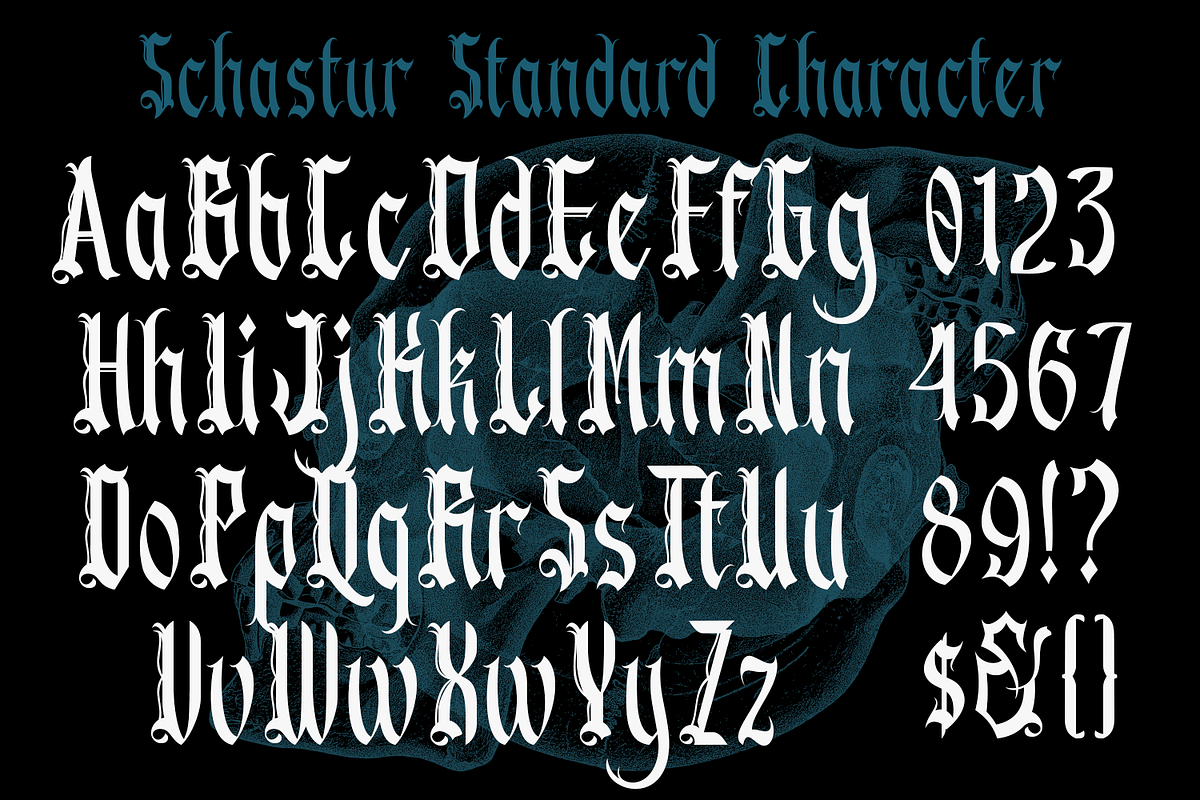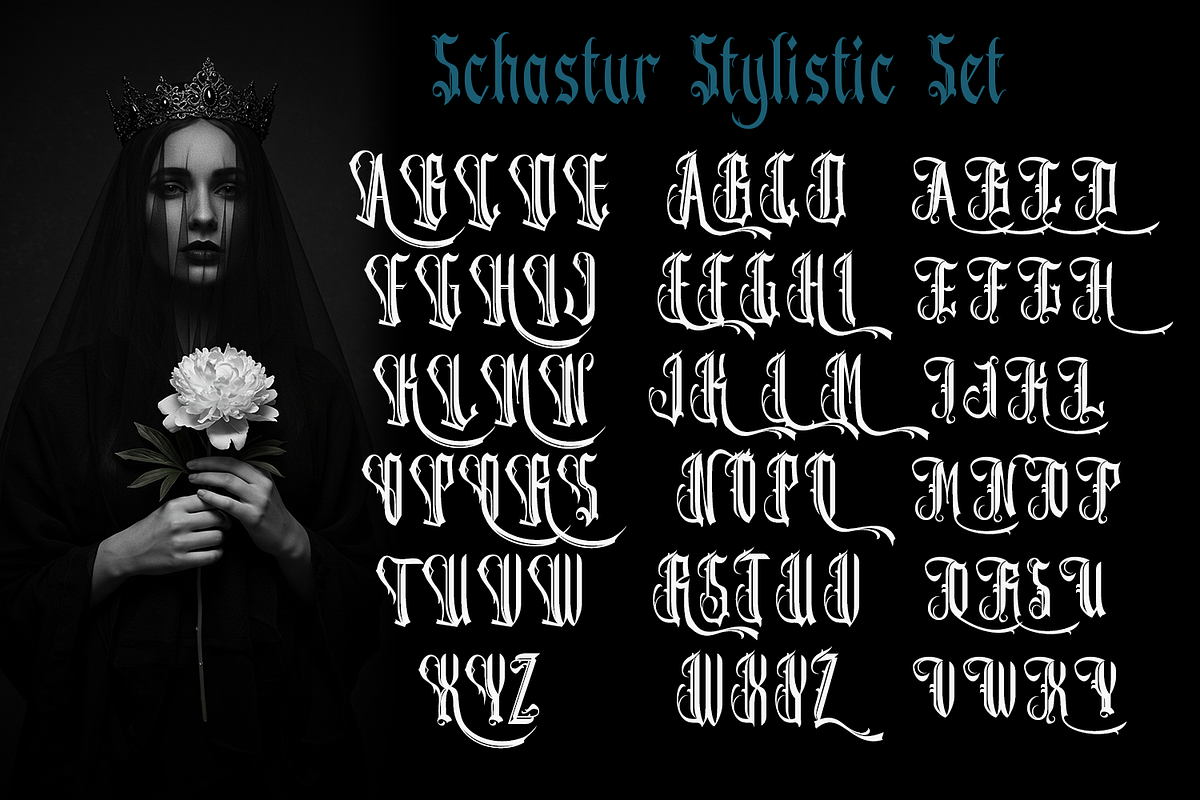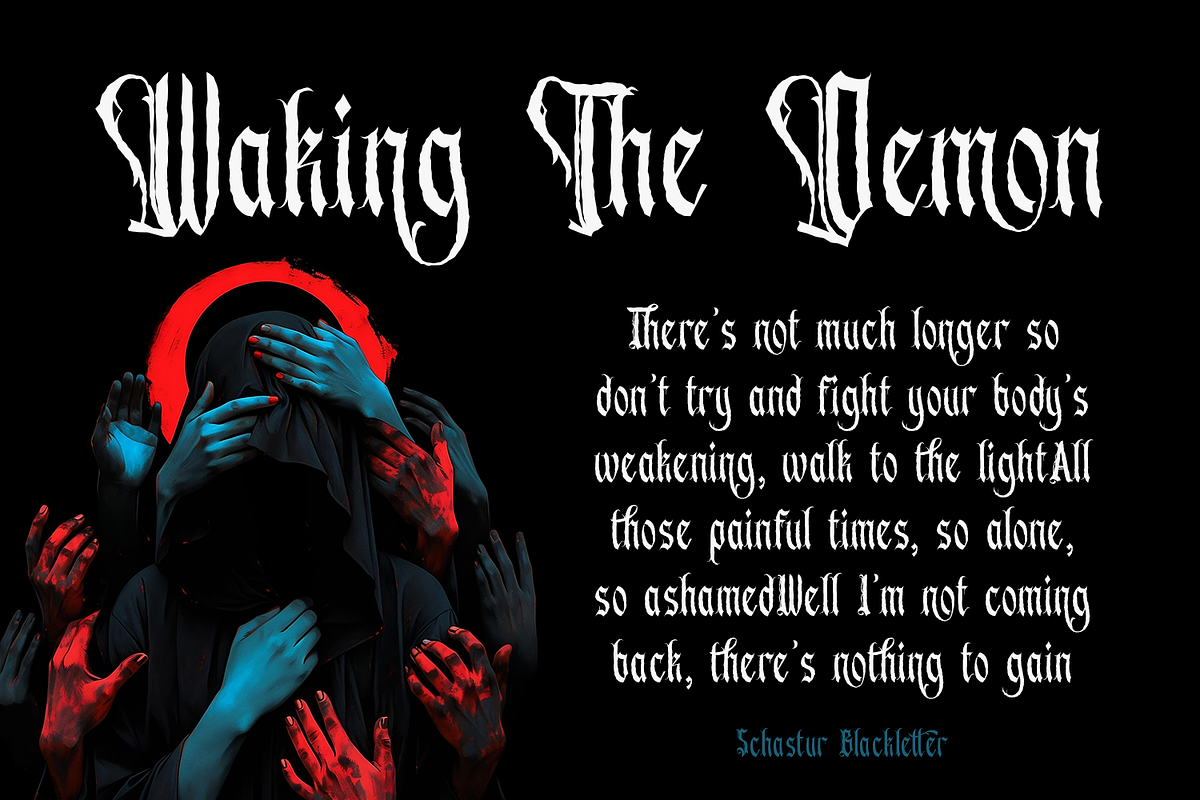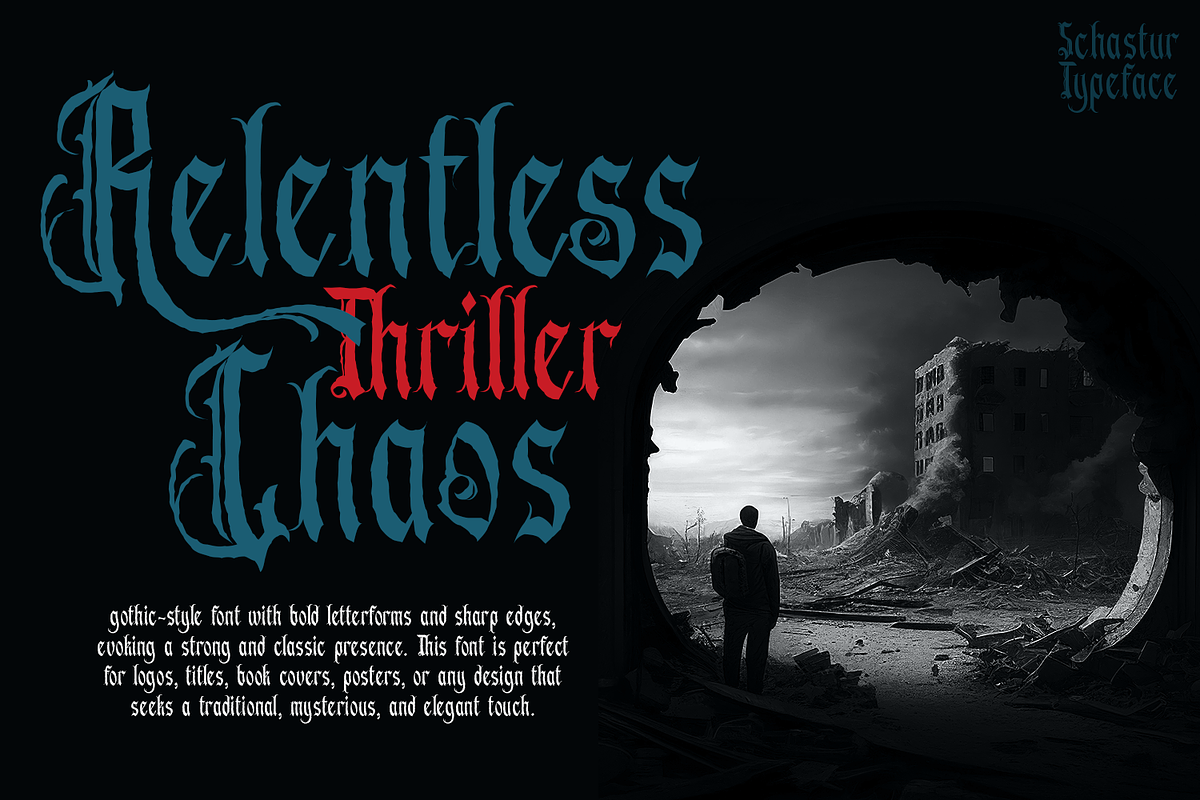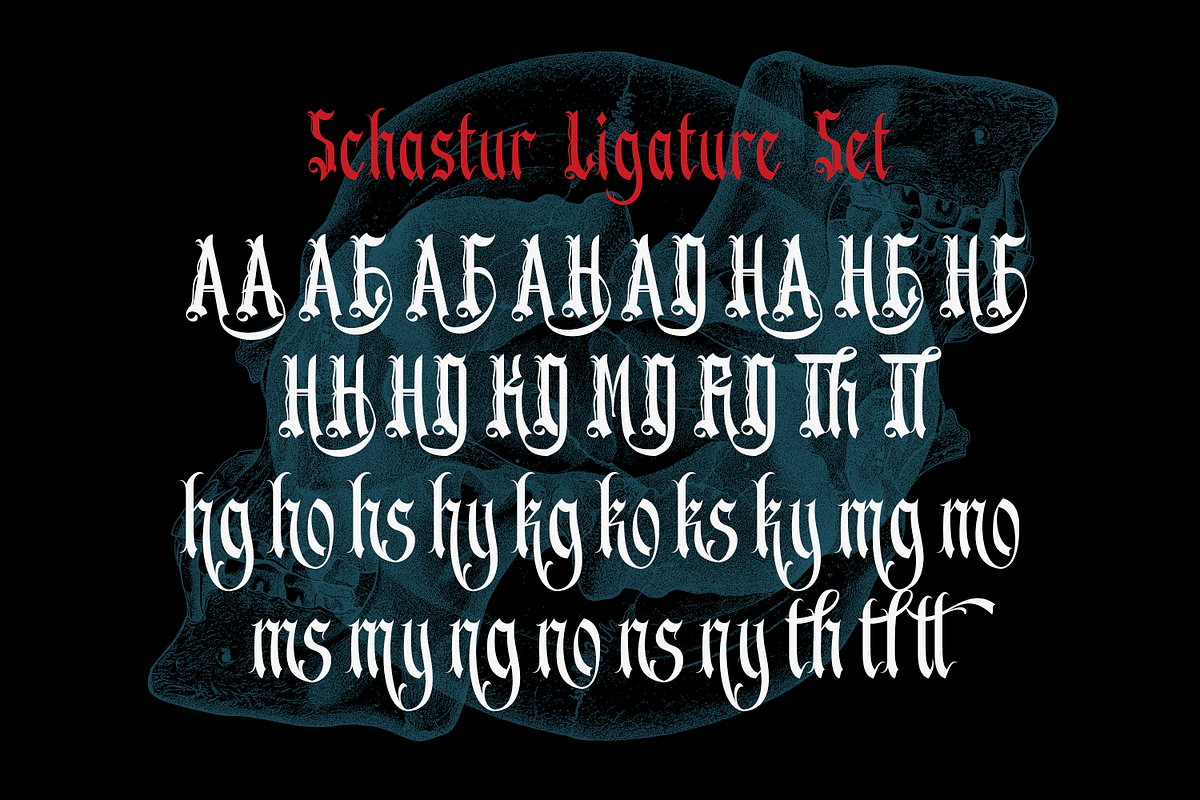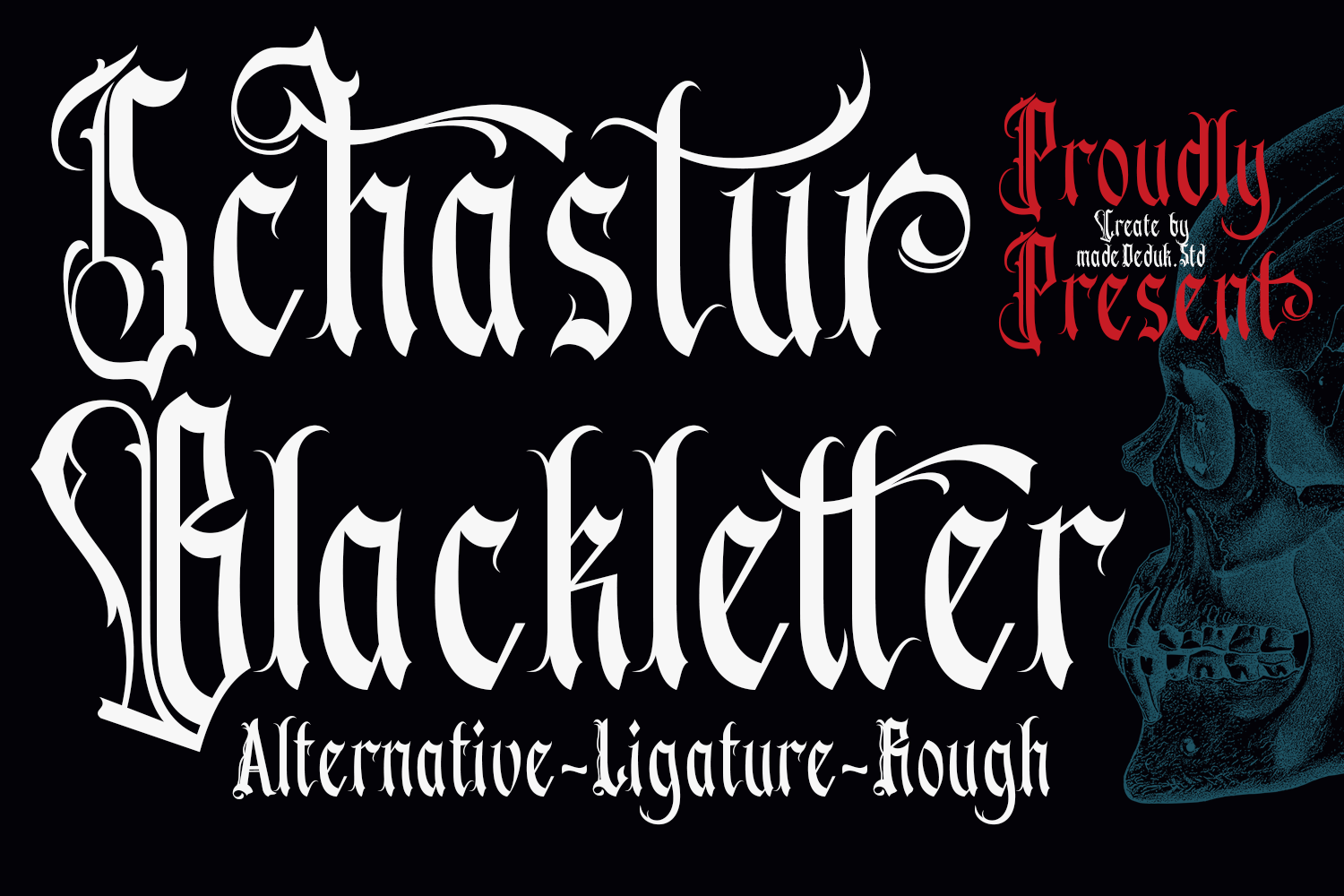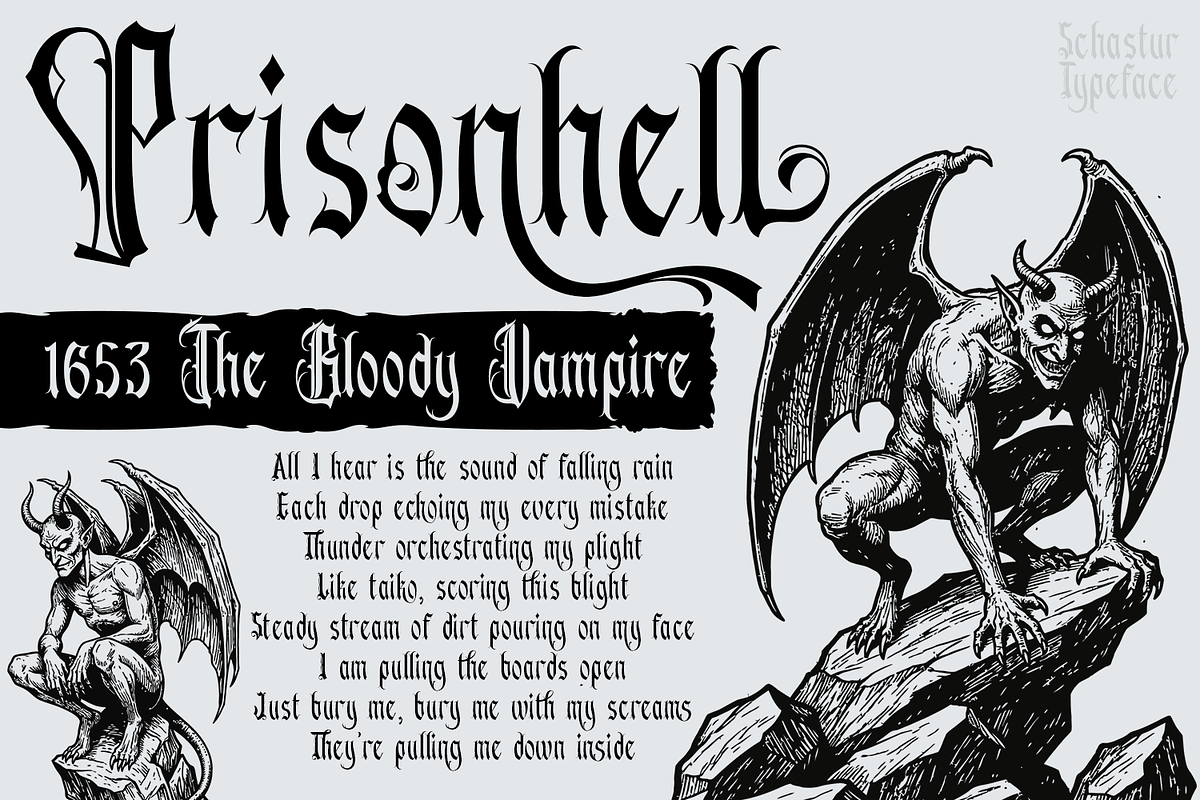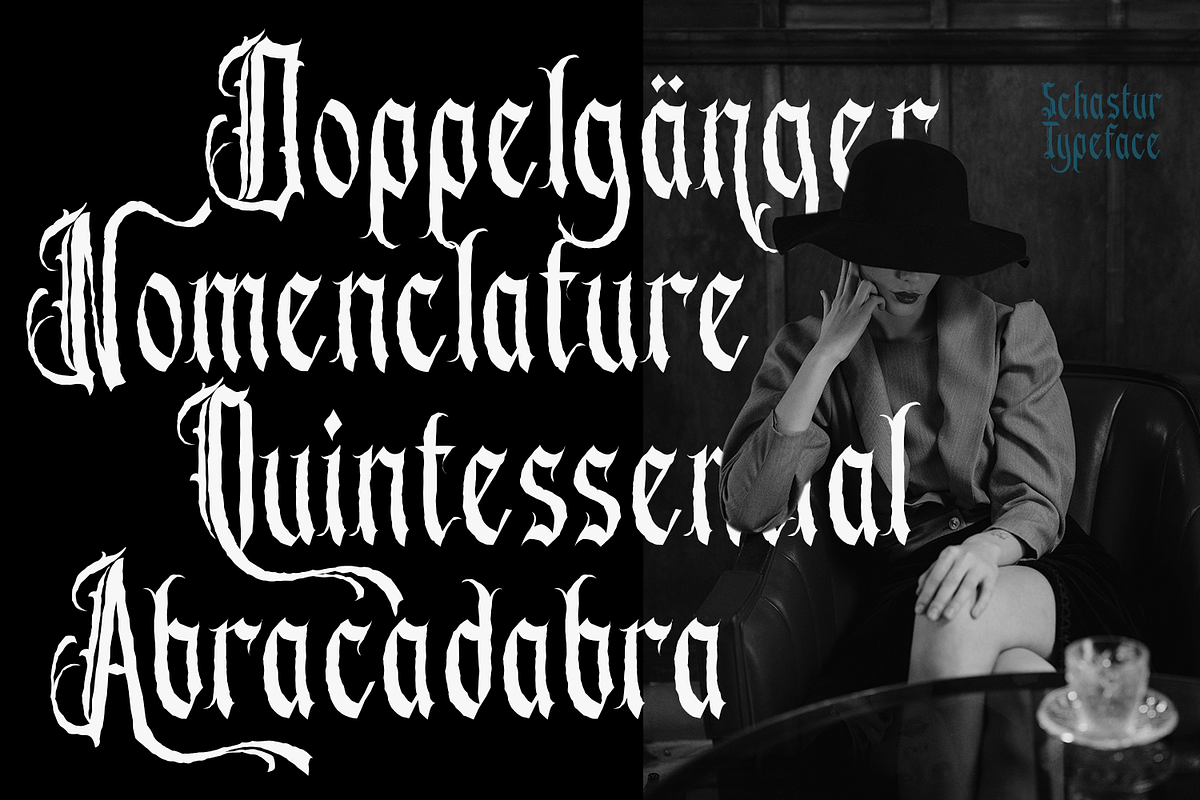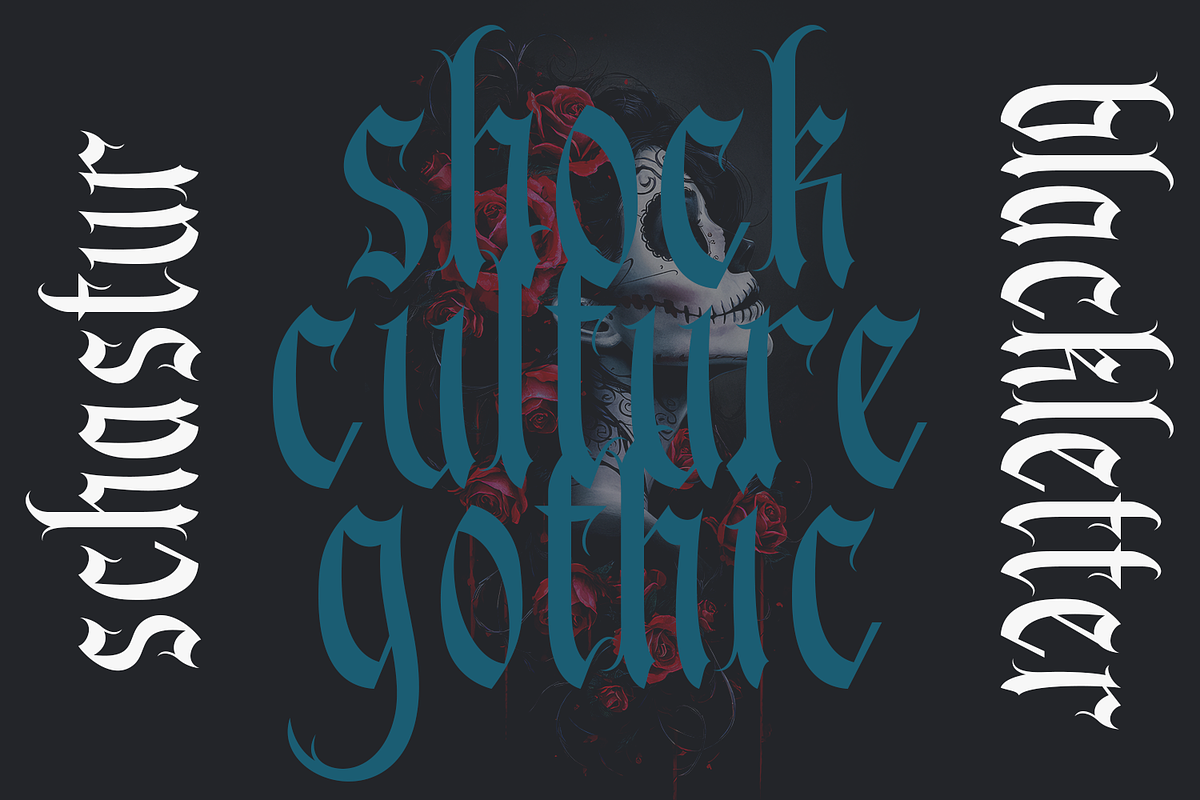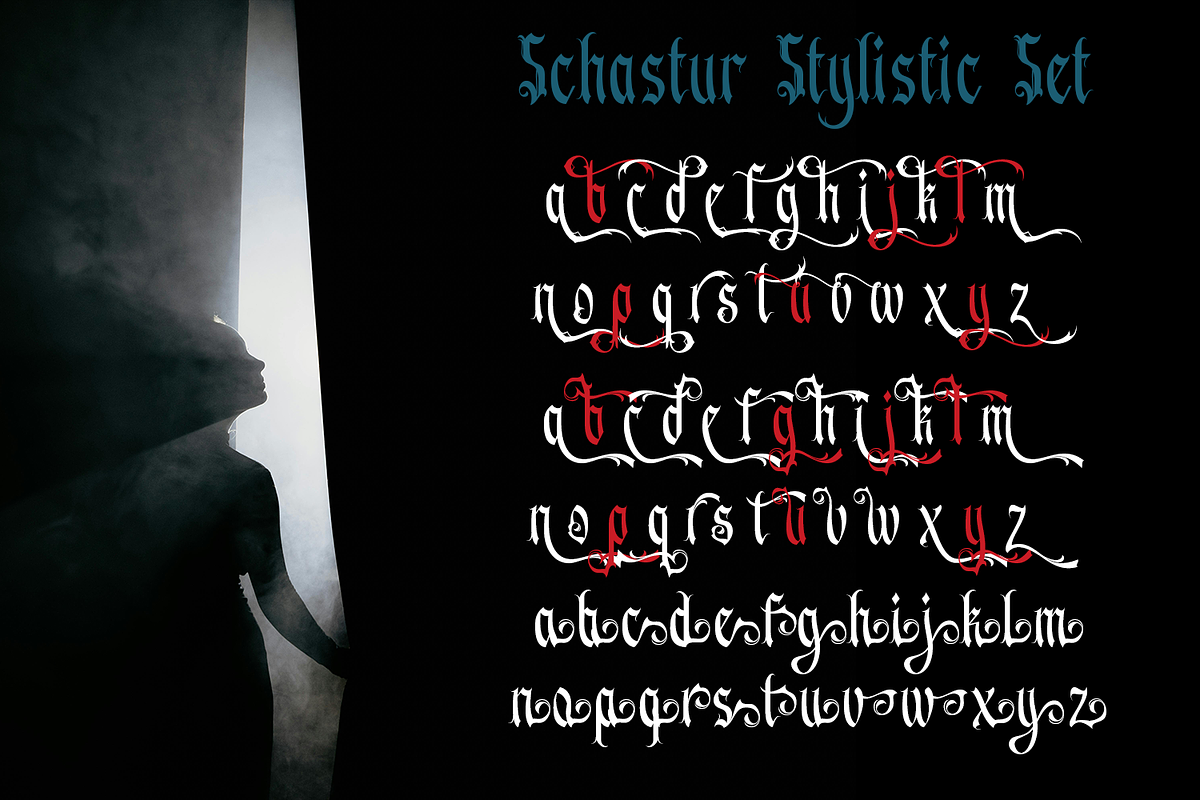
Schastur - Blackletter Typeface
Introducing Schastur, a striking gothic-style font characterized by bold letterforms and sharp edges that evoke a strong and classic presence. This versatile typeface is perfect for a variety of applications, including logos, titles, book covers, and posters, or any design that seeks a traditional, mysterious, and elegant touch. Whether you're crafting digital content or printed materials, Schastur conveys a powerful historic character, making it an ideal choice for impactful branding and creative projects. With its unique style, Schastur stands out in both contemporary and classic designs, ensuring your work leaves a lasting impression.
- International Glyphs